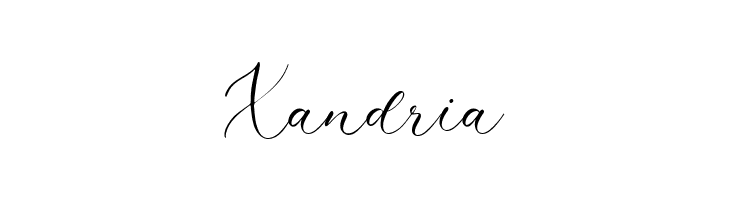
• Andriani Script
A graceful and elegant script font with flowing, interconnected letters.
• SandriaScript
An elegant script font with fluid, graceful strokes and artistic curves.
• Xandria
A graceful script font with flowing, cursive strokes and elegant design.
• Alexandria Rose
An elegant cursive script font with fluid, connected letters and graceful curves.
• alexandria ann
A fluid, handwritten font with an organic and casual style.
• Achandria Regular
An ornate and decorative font with high contrast and elaborate details.
• Alexandria-Italic
A graceful and flowing script font with a handwritten style.
• Alexandria Monogram
A monogram-style font with bold serif letters encased in decorative circular frames.
• my andriane
A bold, cursive script font with elegant, flowing lines and a strong presence.
• Andria Regular
A bold, playful font with a distressed, grunge-like texture.